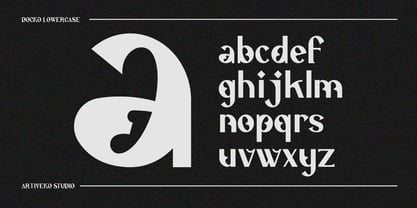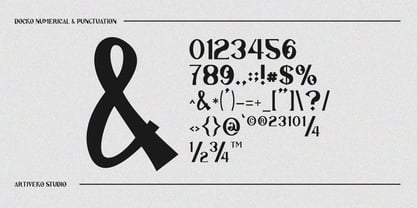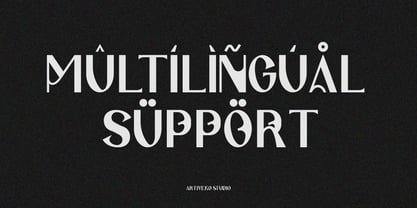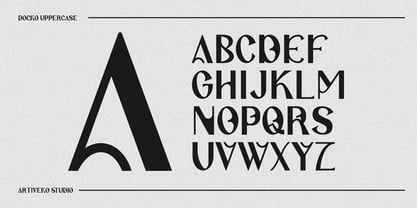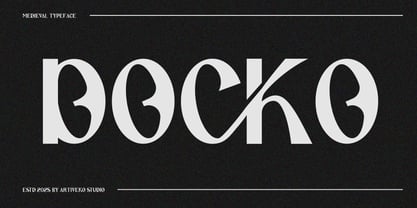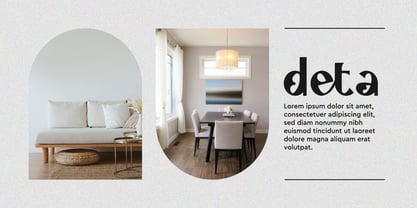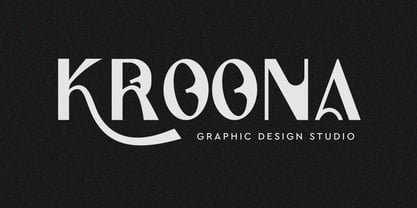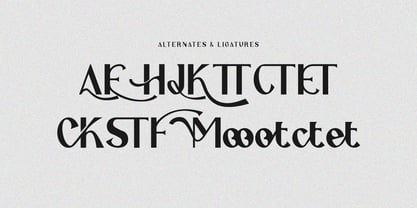
Docko
by Artiveko
The Docko Font Family was designed by Iwan Alwan and published by Artiveko. Docko contains 2 styles and family package options. More about this family
Docko is a medieval-inspired sans serif font by Iwan Alwan, blending historical charm with modern minimalism. Its unique letterforms feature subtle Gothic influences, making it perfect for fantasy-themed projects, book covers, game design, and branding with a touch of antiquity. With multilingual support, ligatures, and alternates, Docko offers both versatility and a distinctive medieval flair, making it ideal for designs that seek to bridge the past and the present with style.
Designers: Iwan Alwan
Foundry: Artiveko